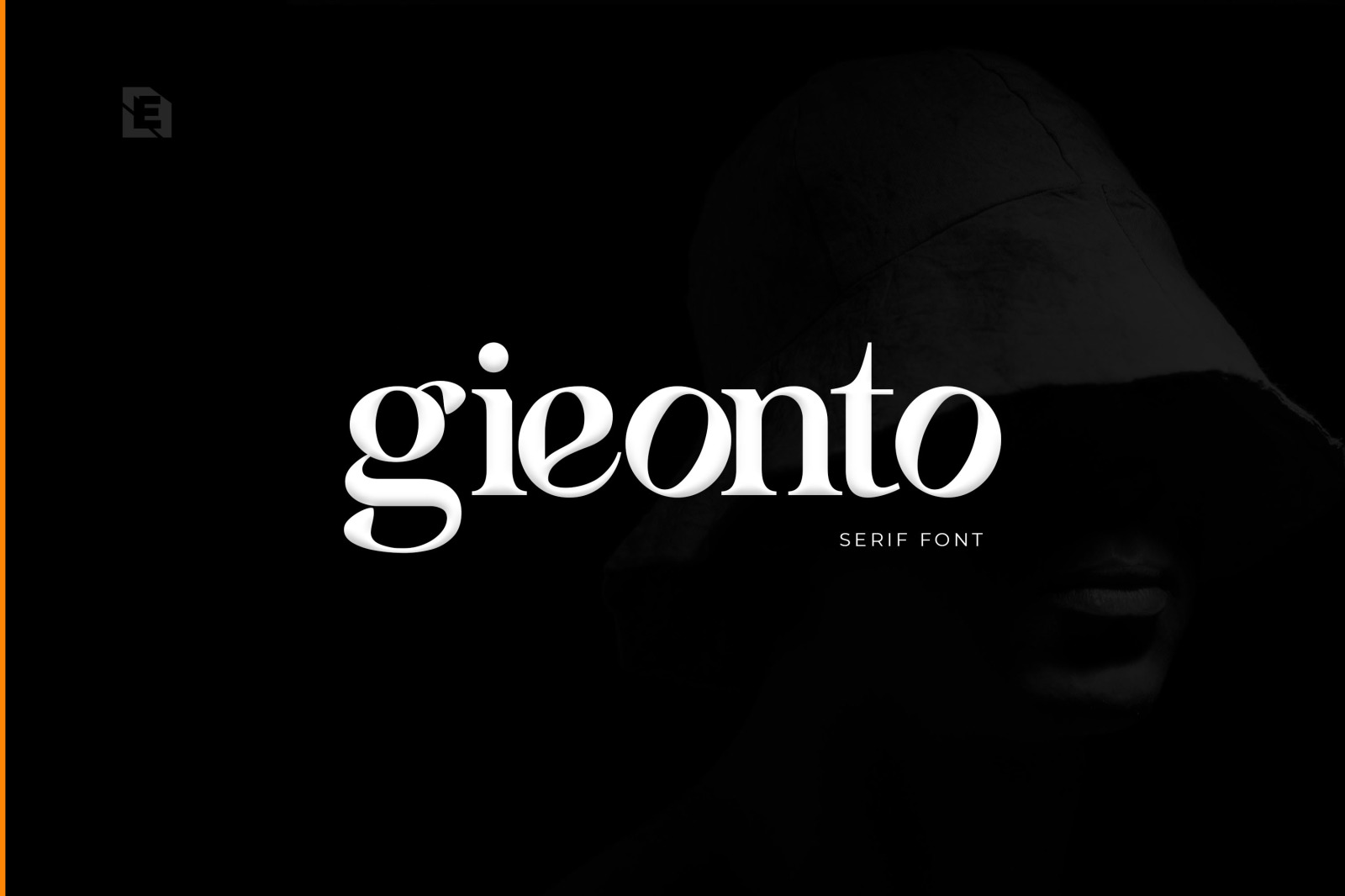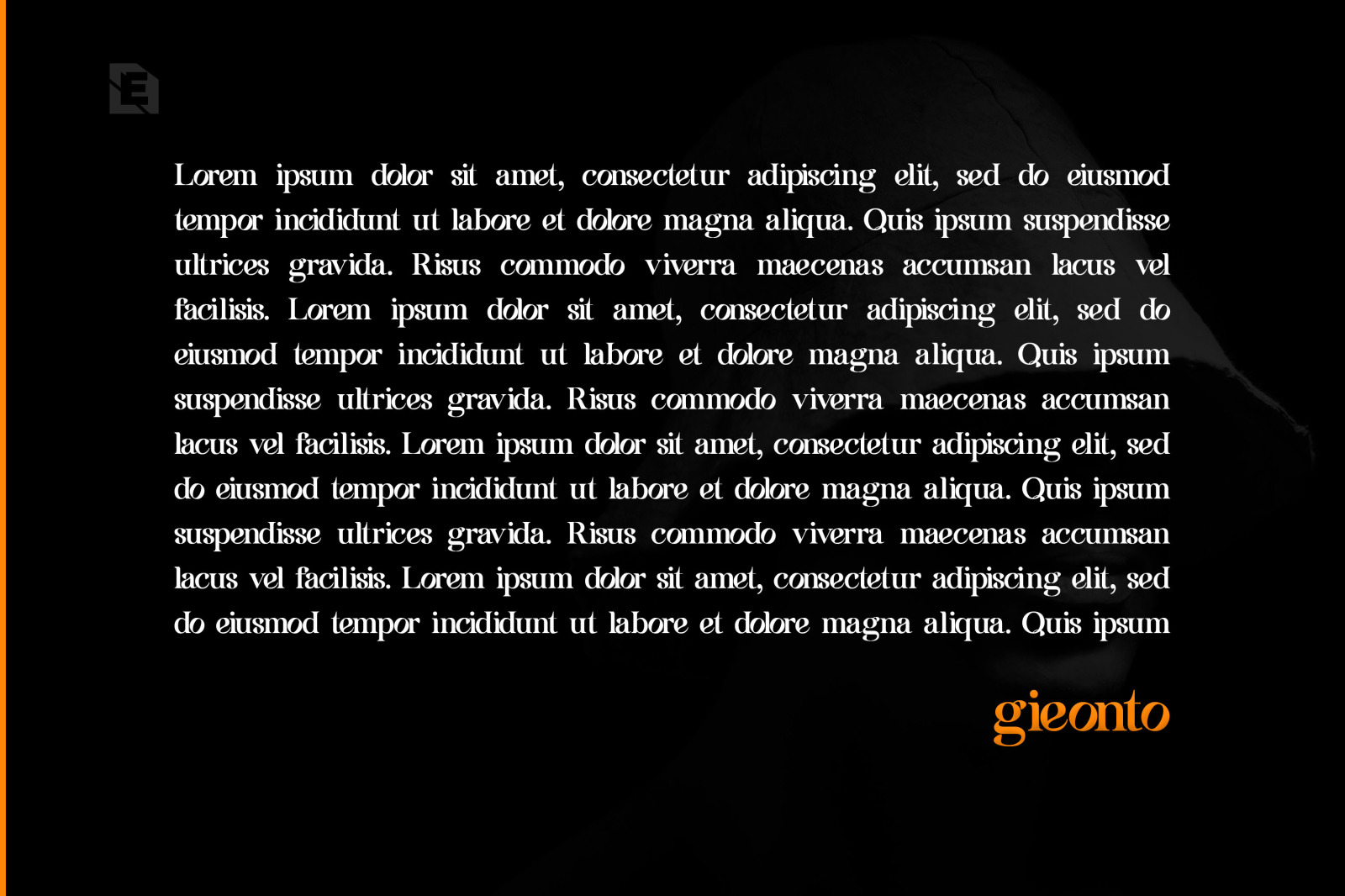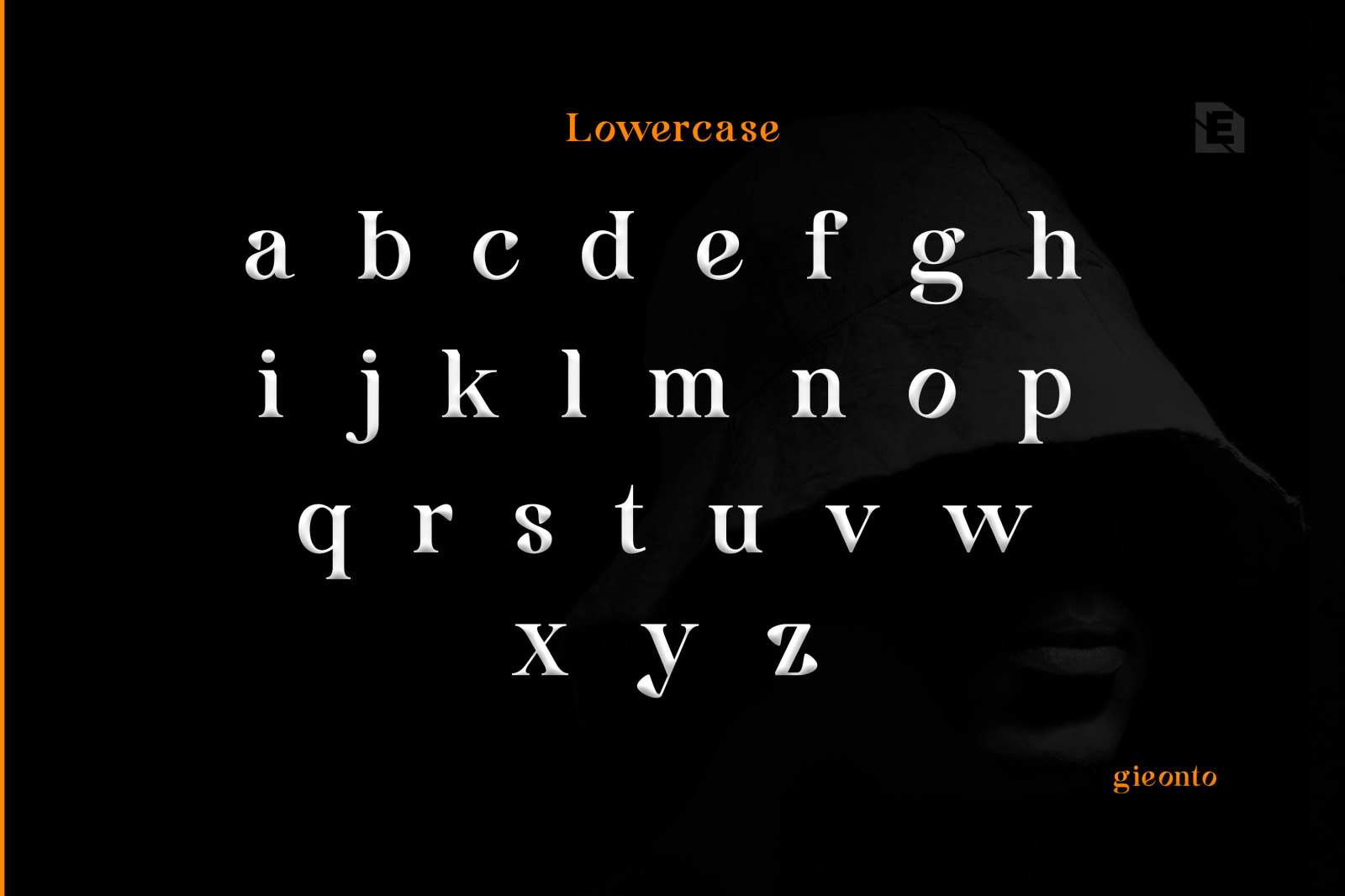
Gieonto Font
Gieonto Typeface is a modern serif typeface with a modern twist. Unique and playful serif style will help you decorate your design. This font is perfect for your branding projects, logo designs, magazine headers, t-shirt ads, website headers, and more.
This modern font is perfect if you are branding clothes. Its unique style will allow you to reveal your brand from a new angle. Stylish alternates will draw the eye of many customers to your brand.
Also, also you can use this font as a crafty font. Gieonto Typeface will well complement your designs, it will be able to decorate the cover of your posters.
You can easily use the font feature in many areas. You can create your text with normal characters and highlight bold characters and titles. Some letters in this font will keep your design to make gorgeous.
This font has 200 above glyphs and extensive Latin script support and upper and lowercase serif characters. It carries a powerful, unique, and social character line with a premium finish, giving a new impression. Add it confidently to your favorite creations and let yourself be amazed by the outcome generated.
FEATURES
Uppercase
lowercase
punctuations
numbers